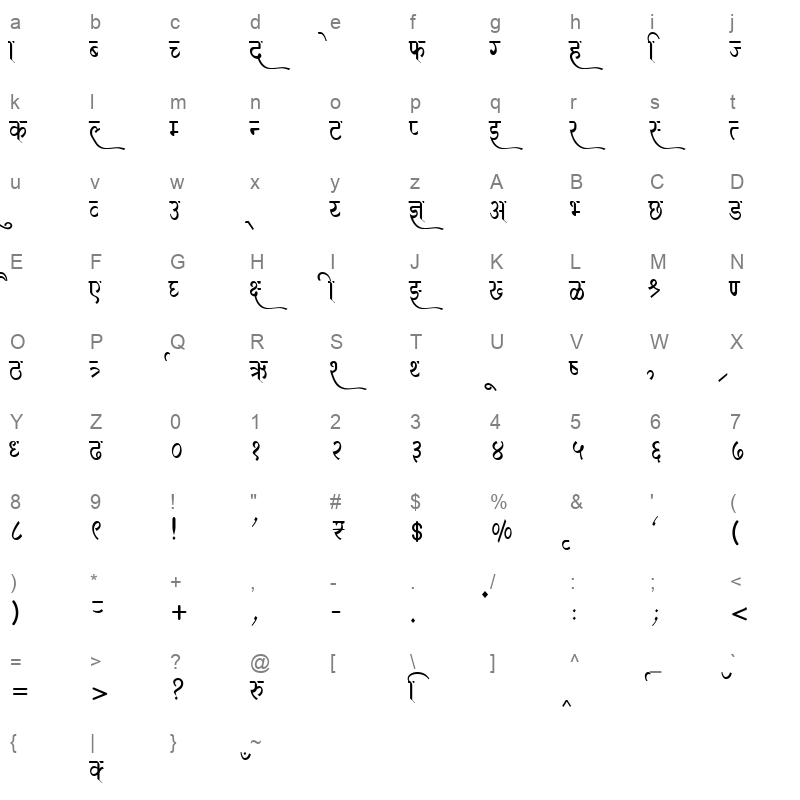
AMS Purvi Regular marathi Font
The AMS Purvi Regular font is a beautifully designed Regular typeface. It has been downloaded 236 times and rated 3 out of 5 by 3 users.